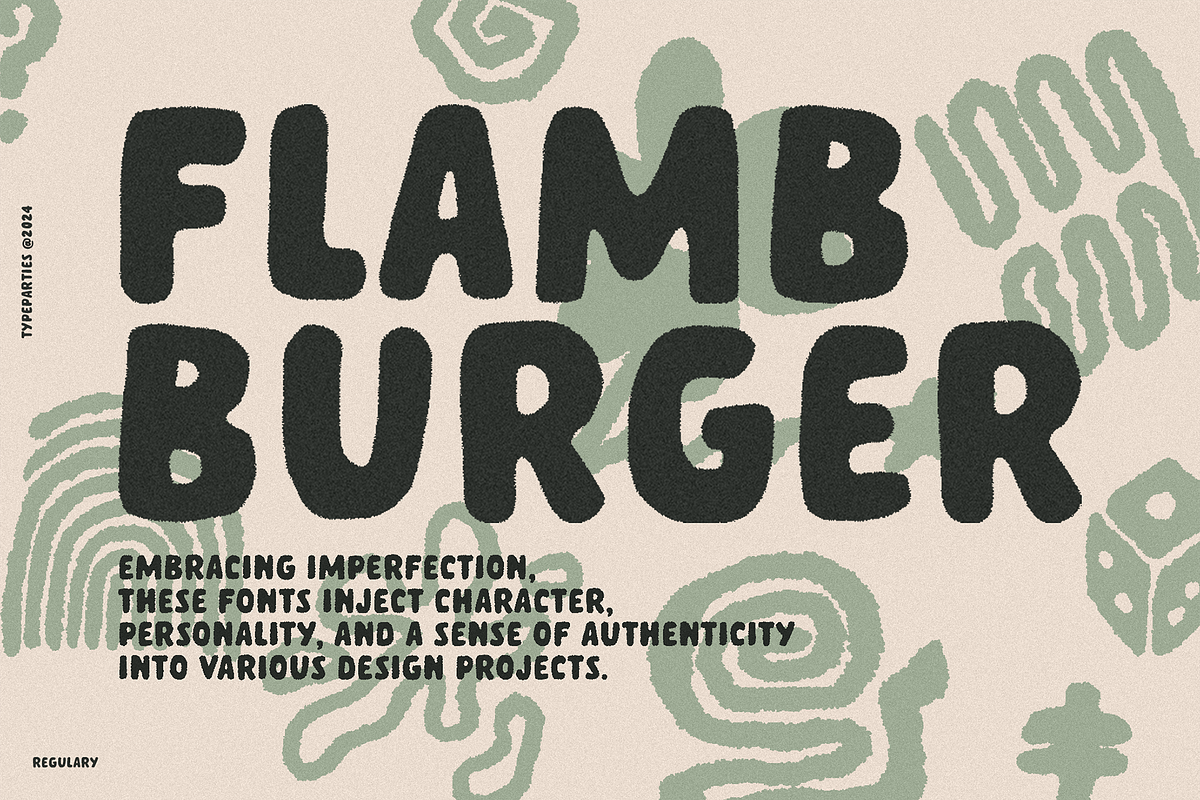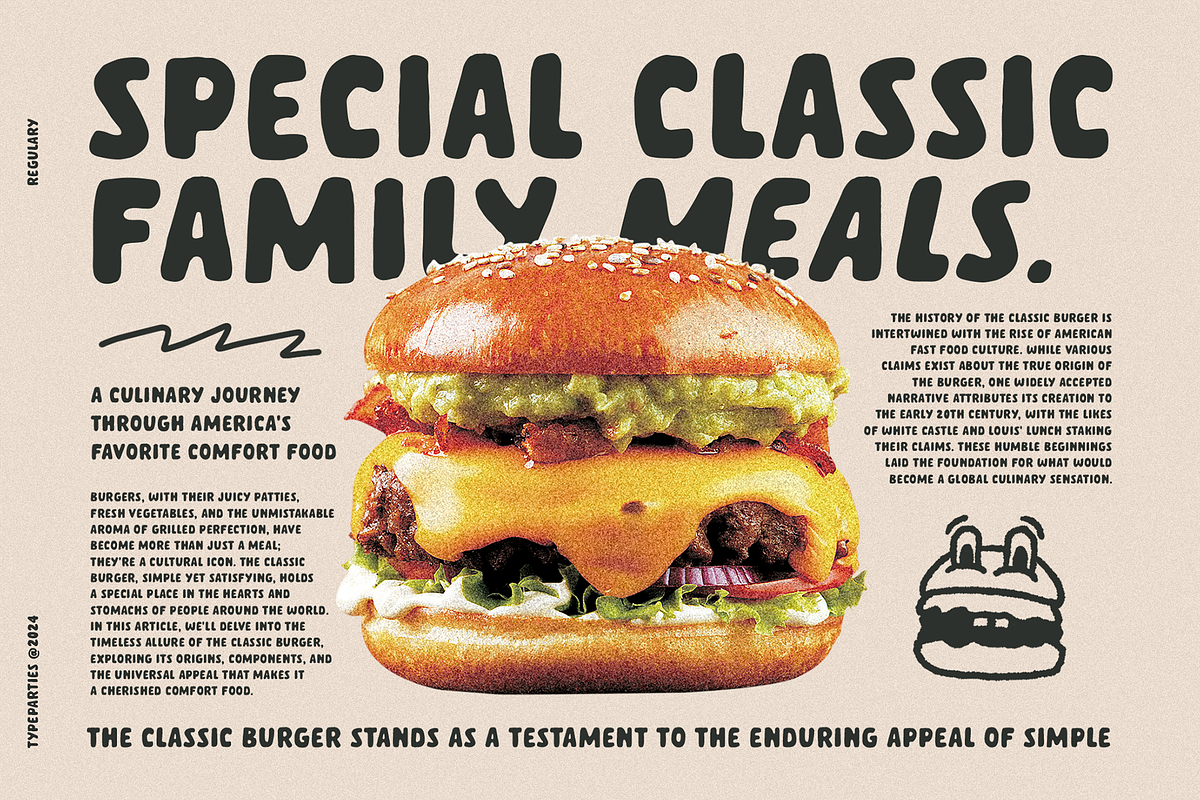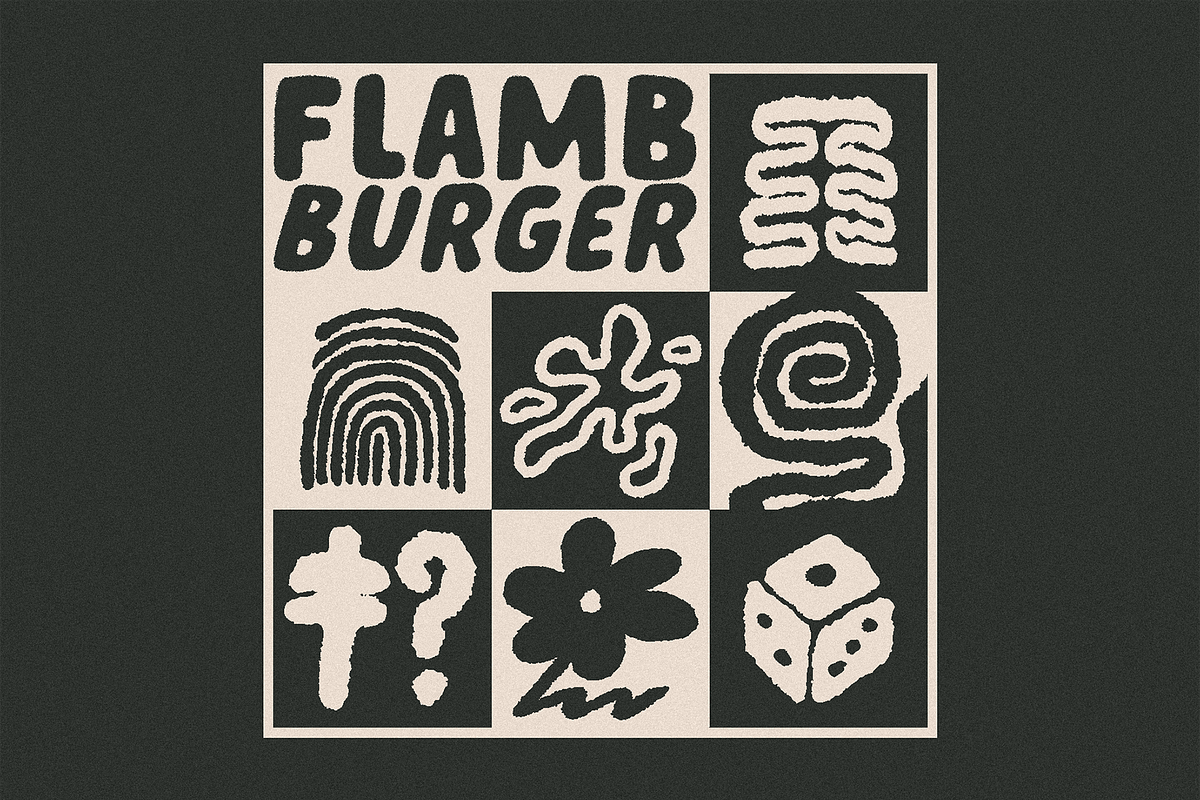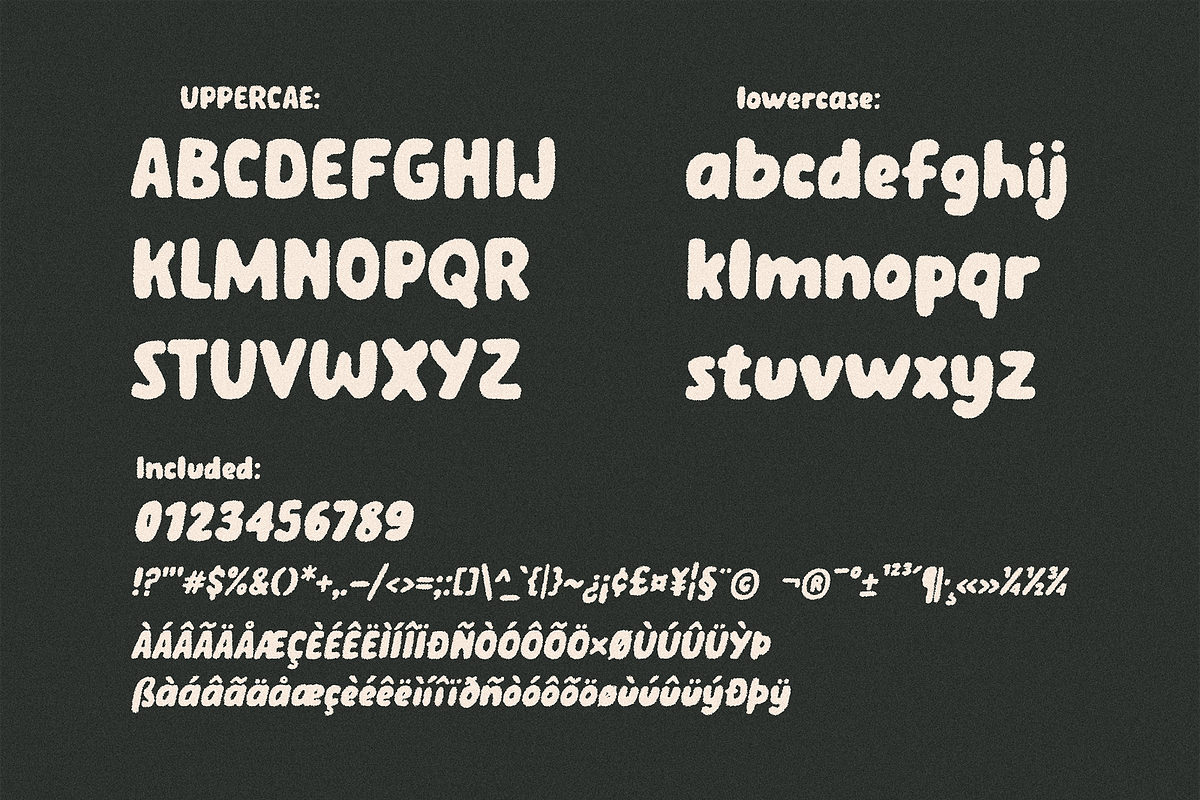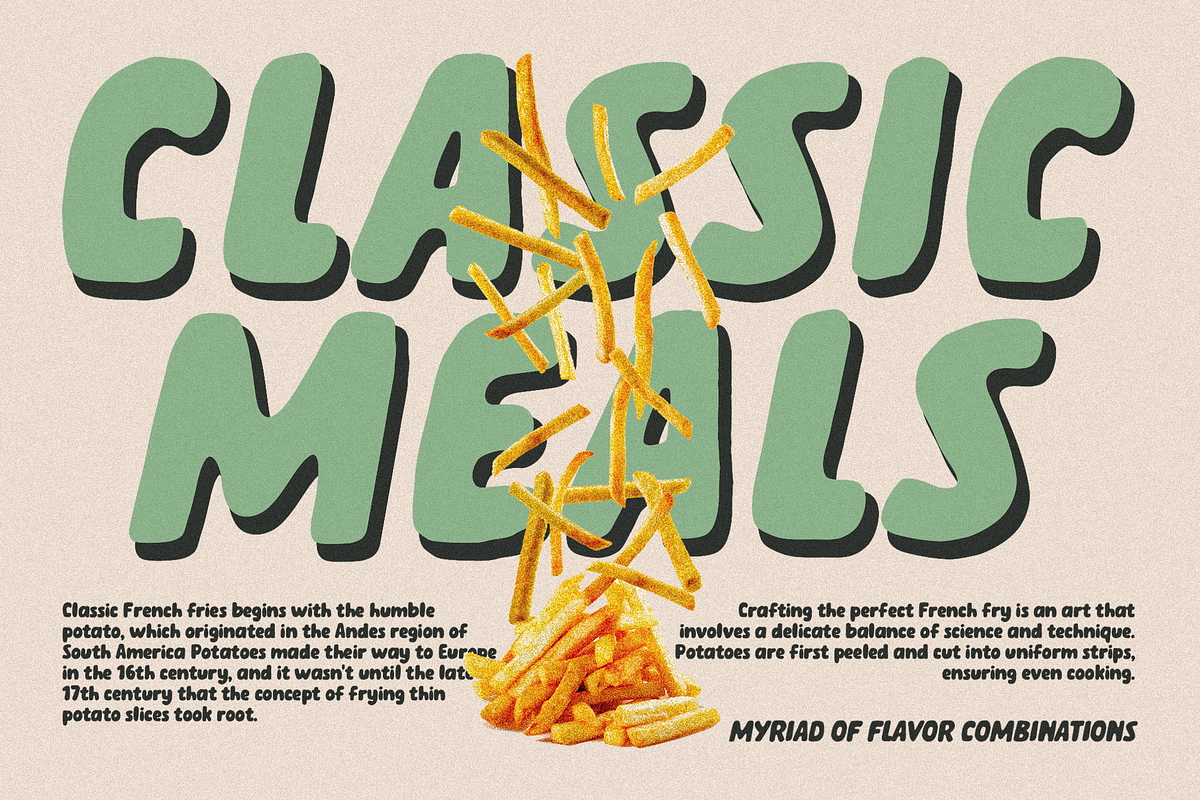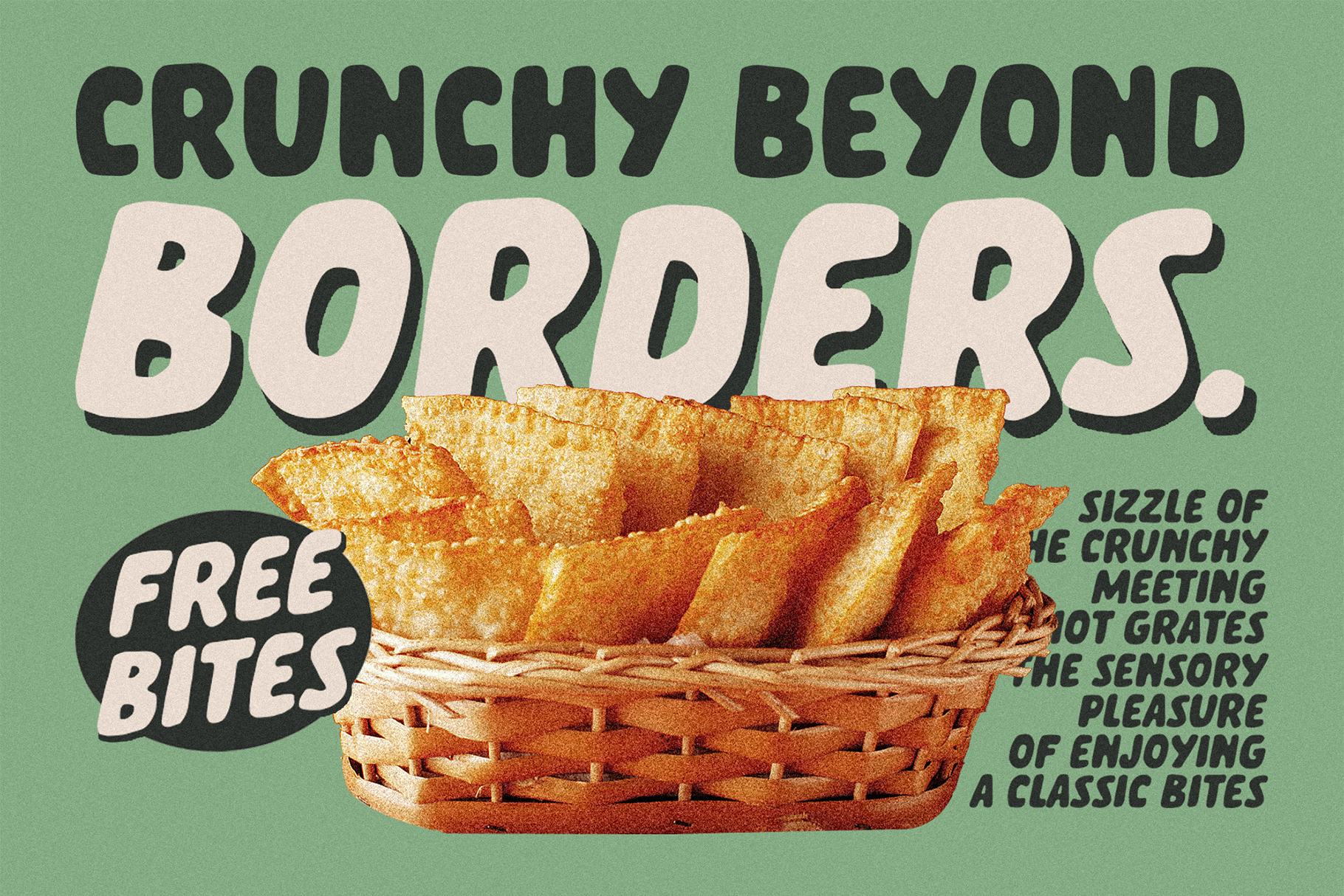
Flamb Burger handwritten font
One of the primary attractions of messy handwriting fonts lies in their imperfection. Unlike traditional, sterile fonts, messy handwriting fonts carry an inherent warmth and authenticity. They evoke a sense of human touch, reminiscent of personal notes and casual scribbles. The irregularities and quirks of messy handwriting fonts add character, breaking away from the monotony of perfectly structured typefaces.